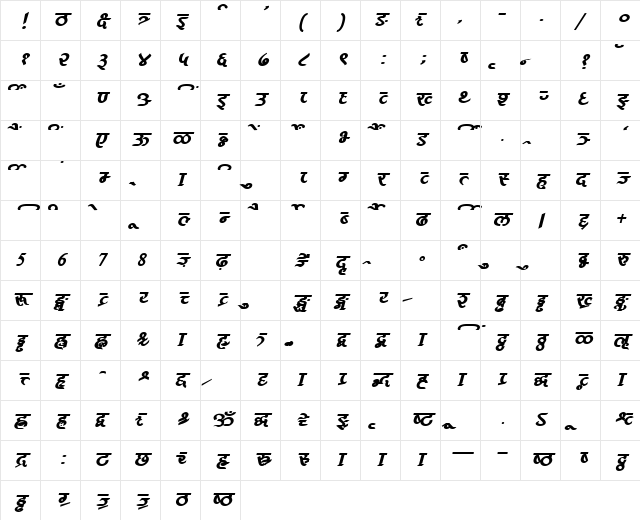
AkrutiDevChandrika BoldItalic Free Font
AkrutiDevChandrika BoldItalic
AkrutiDevChandrika Family
AkrutiDevChandrika BoldItalic
Design Context for AkrutiDevChandrika
AkrutiDevChandrika flows with the natural rhythm of handwritten lettering, making it ideal for designs that call for warmth and personal expression. Its bold stroke weight gives it real presence on the page.
Font Pairing: Combine AkrutiDevChandrika with a simple geometric sans for maximum contrast - the tension between flowing curves and clean structure is a classic typographic pairing.
Pro Tip: Use AkrutiDevChandrika for short runs of text - names, titles, or taglines. Extended body copy in script faces tires the eye quickly.